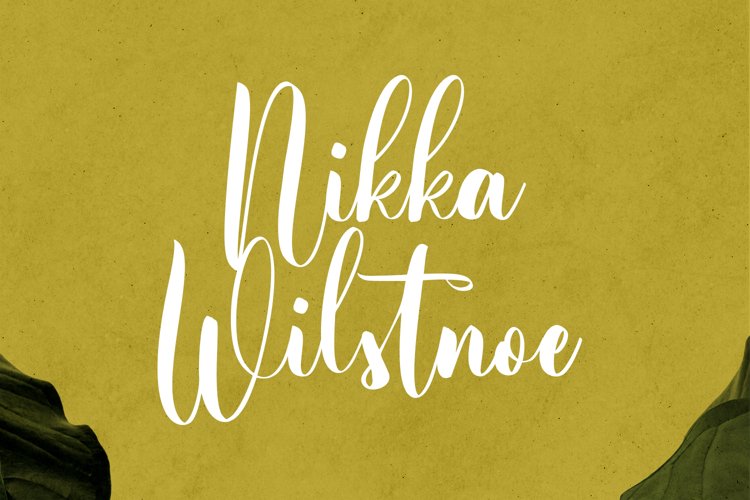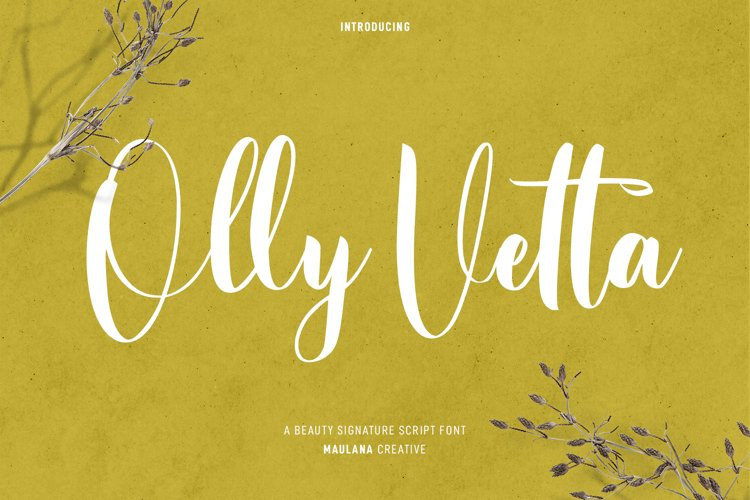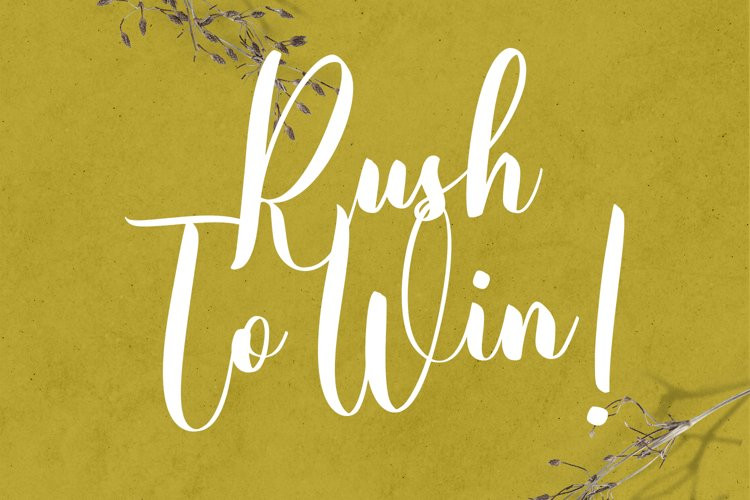
Olly Vetta Font
Olly Vetta FontOlly Vetta is a modern handwritten script font. With high contrast stroke, fun character with a bit of ligatures. To give you an extra creative work. Olly Vetta font support multilingual more than 100+ language. This font is good for logo design, Social media, Movie Titles, Books Titles, a short text even a long text letter and good for your secondary text font with sans or serif. Make a stunning work with Olly Vetta font.